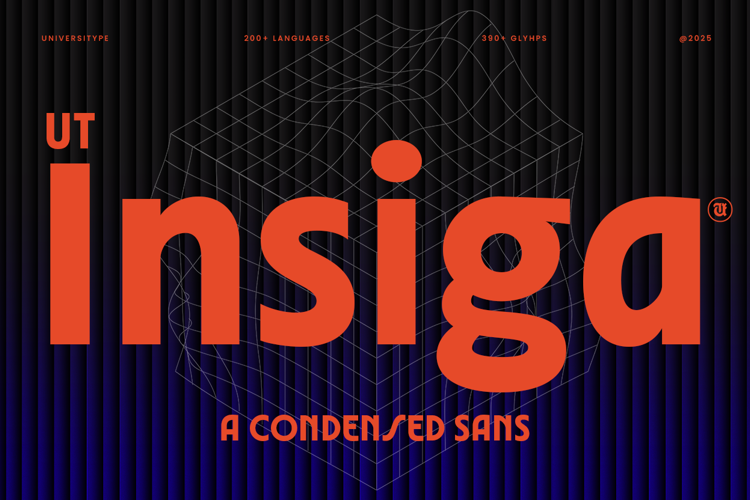
UT Insiga Font
UT Insiga is a modern condensed sans typeface built for clarity, structure, and confident layouts. Designed with tight proportions and smooth curves, it balances efficiency with subtle expression, making it feel focused without turning rigid.
The condensed width allows text to sit neatly in space-limited layouts, while consistent stroke weight keeps readability intact across sizes. Rounded details soften the overall tone, giving the typeface a calm, contemporary presence that works naturally in both digital and print environments.